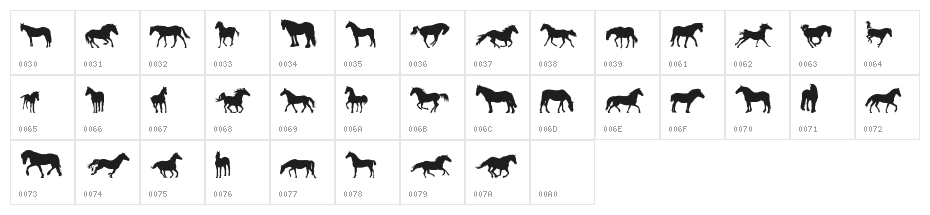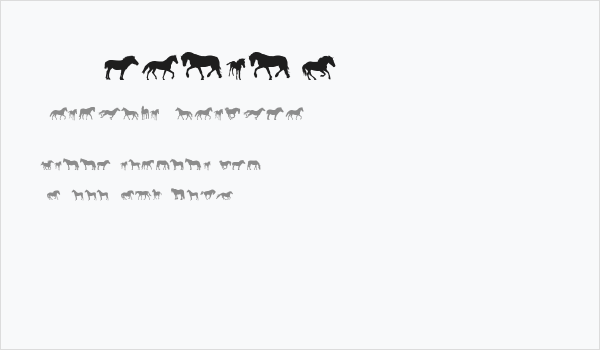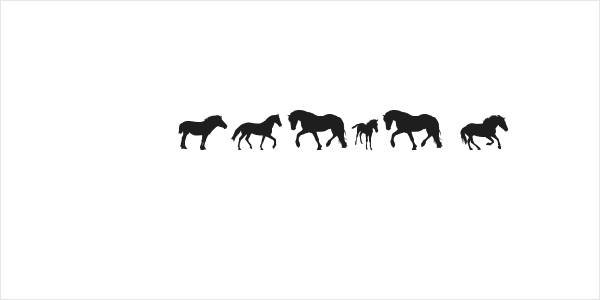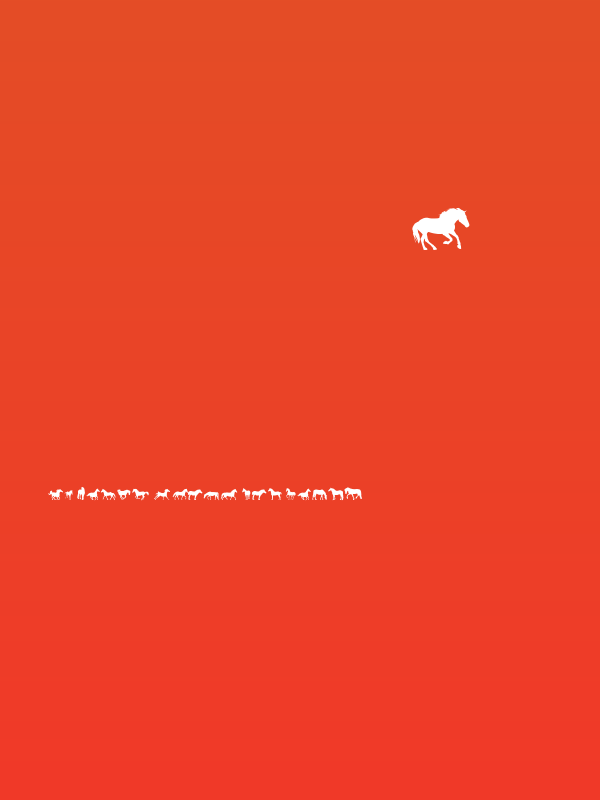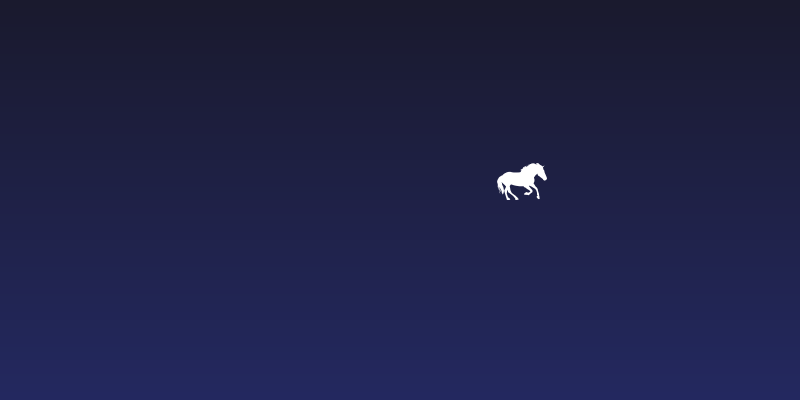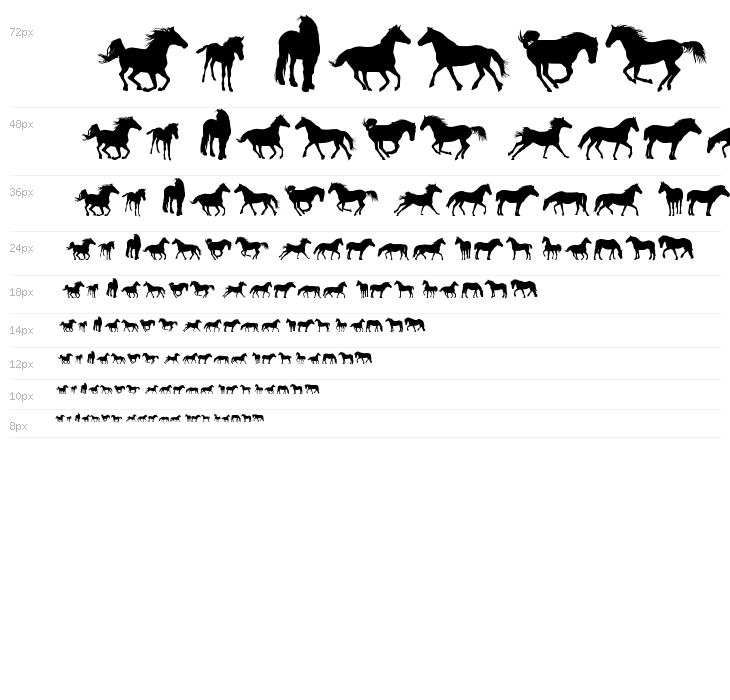
DJ Horses 1 Font
DJ Horses 1 Description
A decorative collection of horse silhouettes in various poses and gaits, rendered in solid black with no typographic letterforms or numerals present.
| Use Case | Decorative elements, icons, thematic graphics |
| Proposed Projects | Animal-themed designs, equestrian event posters, decorative borders, children's materials. |